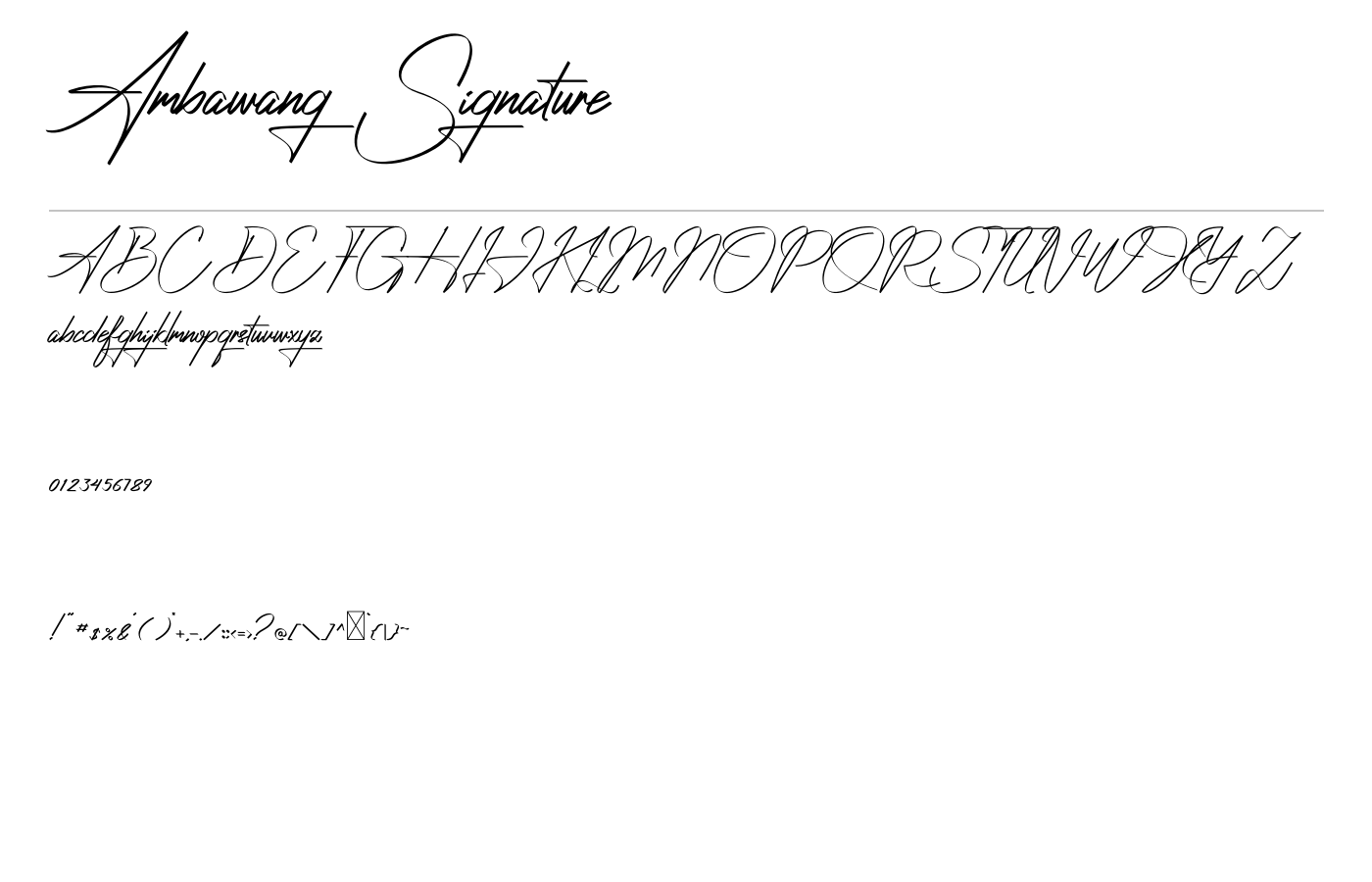
Ambawang Signature is a delicate, handwritten script font with elegant, flowing lines that mimic natural penmanship. Its thin strokes and distinctive letterforms create a refined and personal feel, making it perfect for luxury branding, invitations, and signature-style logos where a sophisticated and unique touch is desired.
Ambawang Signature Font
About Ambawang Signature Font
| Font family | Ambawang Signature Font |
| Designer | Shena Sejati |